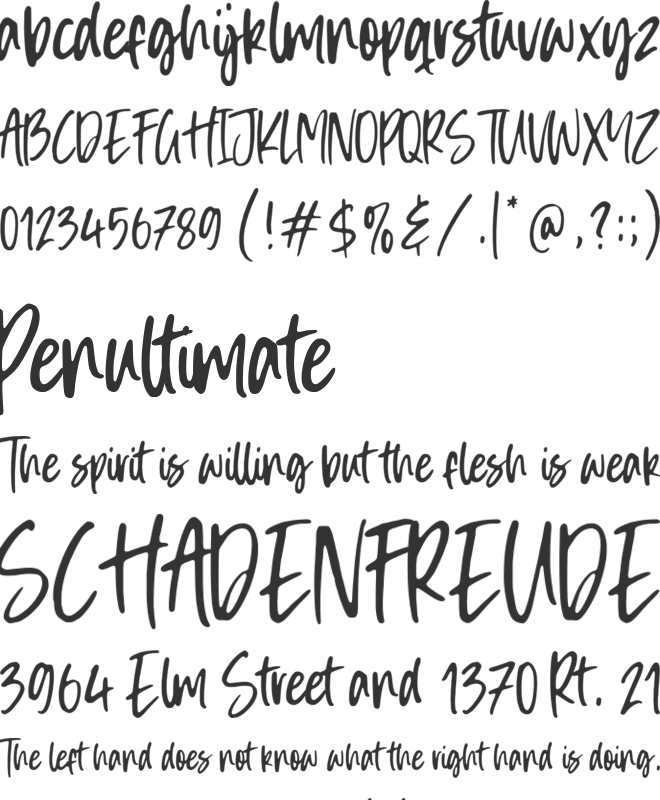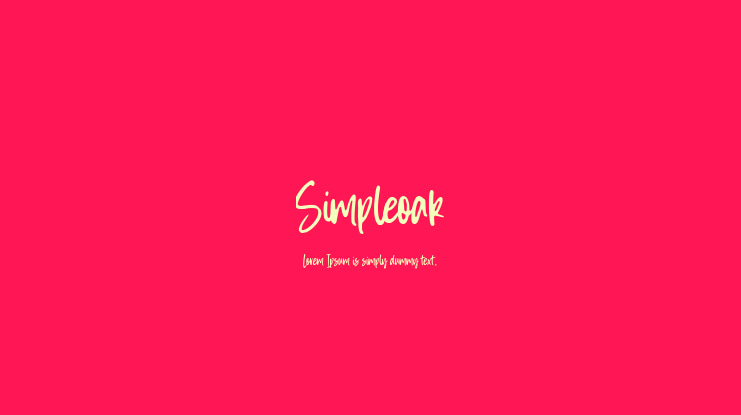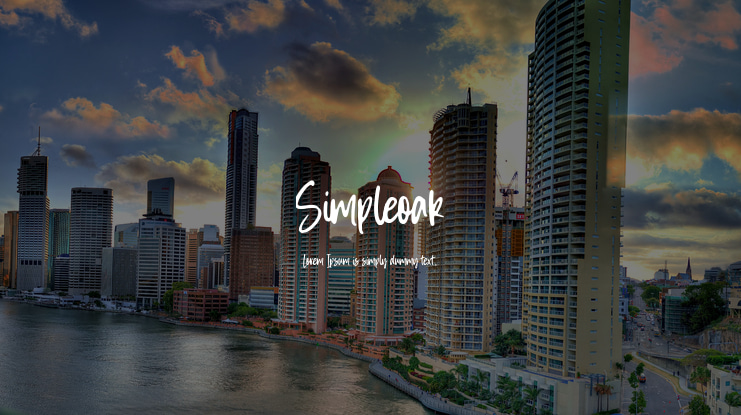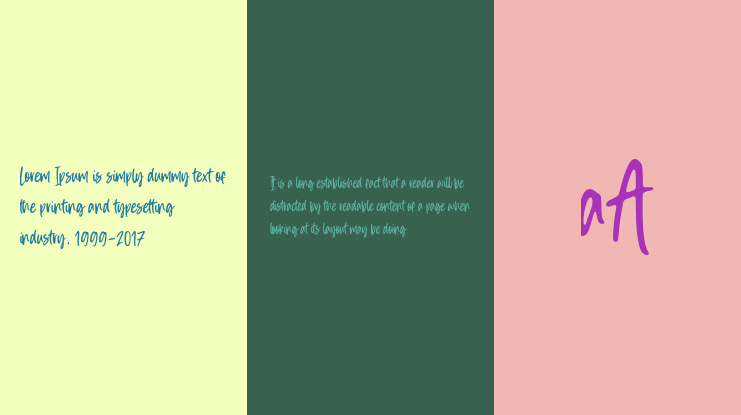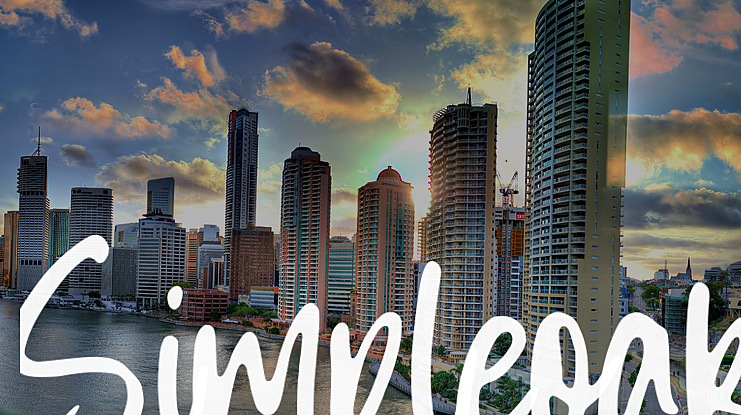
Simpleoak Font
Introducing by Balpirick Studio.
Proudly Present, Simpleoak Font.
Simpleoak is a Modern Handwritten Font.
Simpleoak is a cute and vintage styled handwritten font. Whatever the topic, this font will be a wonderful asset to your font library, as it has the potential to enhance any creation.